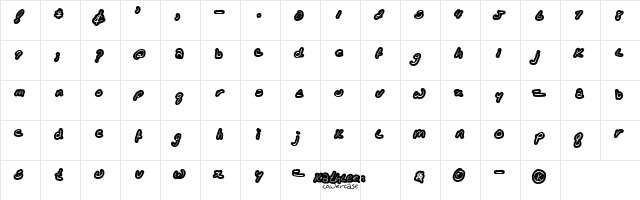
KathleenLowercase Regular Font Preview
KathleenLowercase Regular
Design Context for KathleenLowercase Typeface
KathleenLowercase is a composed and adaptable typeface that performs quietly and consistently across a wide range of design contexts.